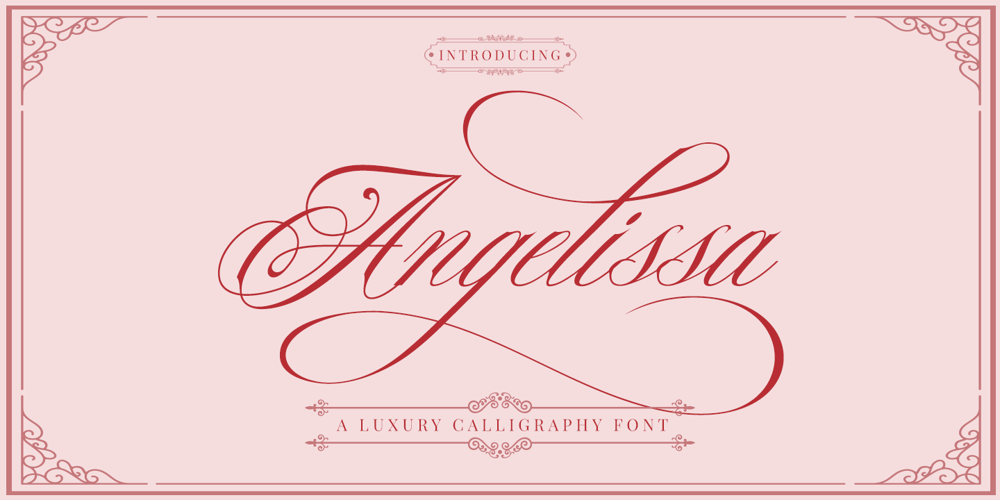
Angelissa
Angelissa font
Angelissa Font Family was designed by Hayinah and published by Rockboys Studio. Angelissa contains 1 styles and family package options. Angelissa. This beautiful script is for those who are needing of elegance and stylish for their designs and particularly well suited for wedding invitations, save the date cards and feminine branding.This font is PUA encoded which means you can access all of the glyphs and swashes with ease! It features a varying baseline, smooth lines, gorgeous glyphs and stunning alternates.